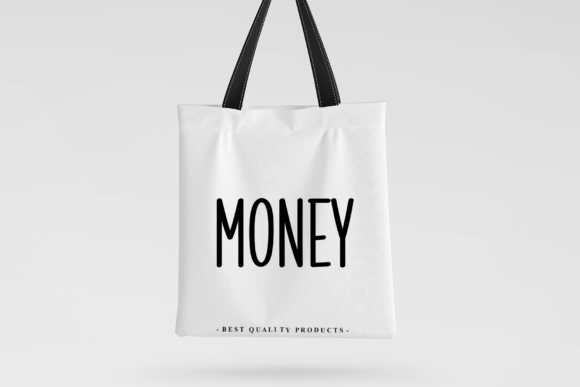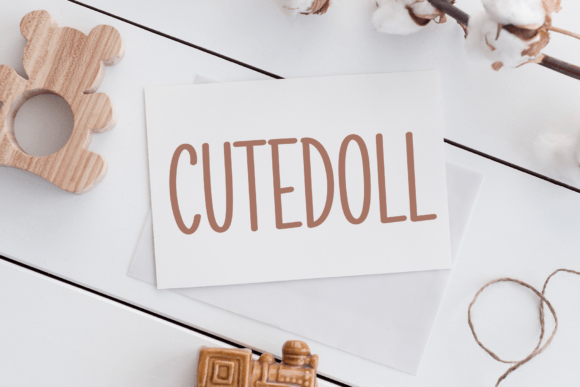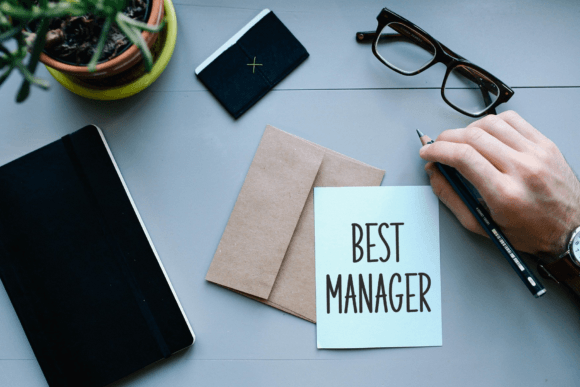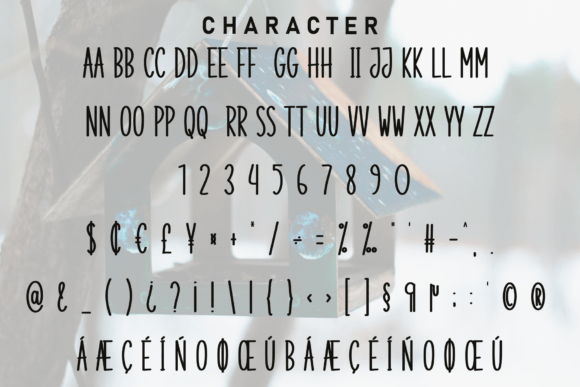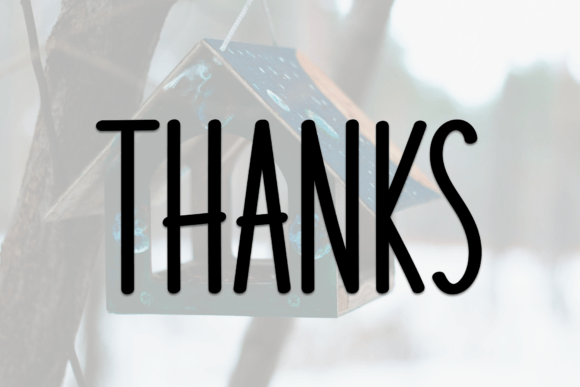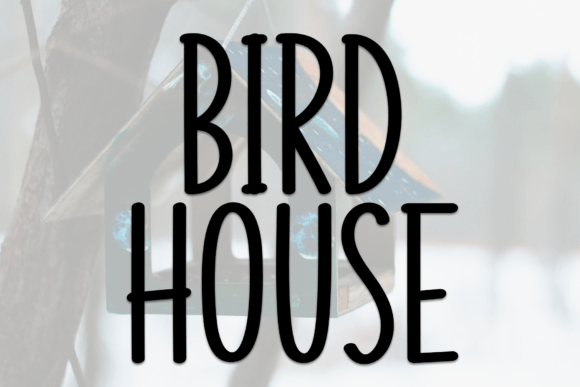
Bird House Font: Adding a Playful Touch to Your Designs
Are you looking for a font that can add a playful and energetic touch to your designs? Look no further than the Bird House font. This handwritten font is perfect for making your text stand out with a fun and casual vibe. In this article, we’ll take a closer look at the Bird House font, its features, and how you can use it to elevate your designs.
What is Bird House Font?
Bird House is a playful, handwritten font that looks like it was drawn with a bold marker. It has a casual, sporty vibe that’s perfect for making a statement. The font is designed to be fun and energetic, making it ideal for projects that require a playful touch. Whether you’re working on a DIY craft project, a kids’ menu, or a fun social media post, Bird House font is sure to add a smile to your audience’s face.
Key Features of Bird House Font
- Playful and Handwritten: Bird House font has a playful, handwritten look that’s perfect for adding a personal touch to your designs.
- Bold and Sporty: The font has a bold and sporty vibe that’s ideal for making a statement.
- Easy to Read: Despite its playful look, Bird House font is easy to read, making it perfect for use in a variety of projects.
- Versatile: The font is versatile and can be used in a range of projects, from DIY crafts to social media posts.
Uses of Bird House Font
Bird House font is perfect for a variety of projects, including:
- DIY Crafts: Add a playful touch to your DIY craft projects, such as signs, cards, and gift tags.
- Kids’ Menu: Use Bird House font to create fun and playful kids’ menus that are sure to delight.
- Social Media Posts: Add a playful touch to your social media posts, such as Facebook, Instagram, and Twitter.
- Party Invitations: Create fun and playful party invitations that set the tone for a fun celebration.
Tips for Using Bird House Font
Here are some tips for using Bird House font effectively:
- Use it Sparingly: While Bird House font is playful and fun, it can be overwhelming if used excessively. Use it sparingly to add a touch of whimsy to your designs.
- Pair it with Other Fonts: Pair Bird House font with other fonts to create a unique and interesting look.
- Experiment with Colors: Experiment with different colors to find the perfect combination that works with Bird House font.
Bird House font is a playful and energetic font that’s perfect for adding a fun touch to your designs. Its casual, sporty vibe makes it ideal for a variety of projects, from DIY crafts to social media posts. With its bold and playful look, Bird House font is sure to make your text stand out. So why not give it a try and add a playful touch to your designs?